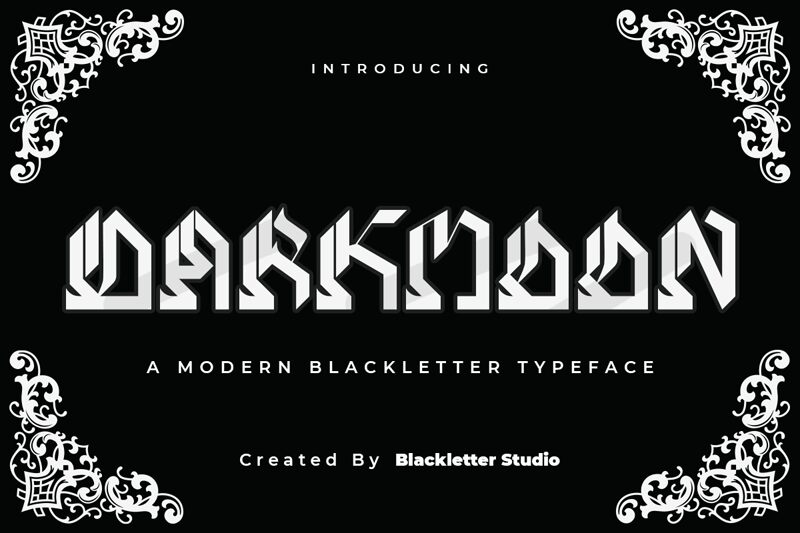
Darkmoon, a gothic font designed by Blackletter Studio, is a modern take on an ancient style. Its semi-light weight adds an ethereal touch to its sharp edges and bold lines. The Darkmoon font is perfect for projects that require a touch of edginess, such as metal band posters, horror movie titles, or tattoo designs. Its gothic roots also make it suitable for medieval-themed projects like fantasy book covers or historical reenactment advertisements. With its modern twist on a classic style, the Darkmoon font is sure to make any project stand out from the crowd.
Darkmoon